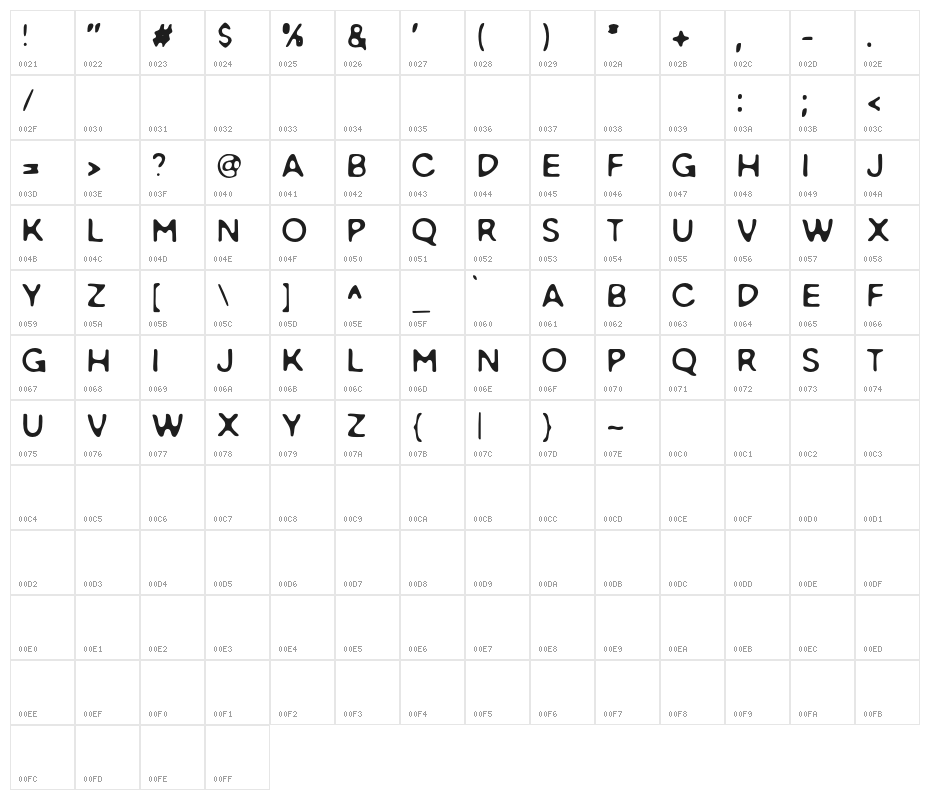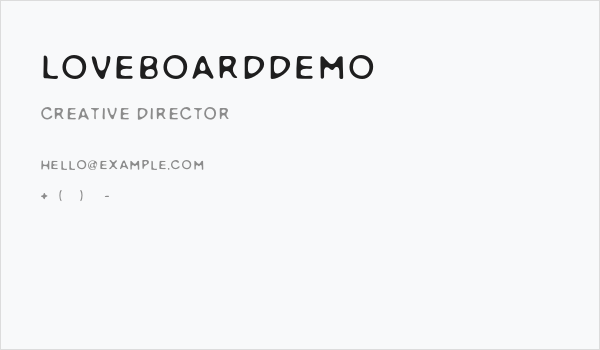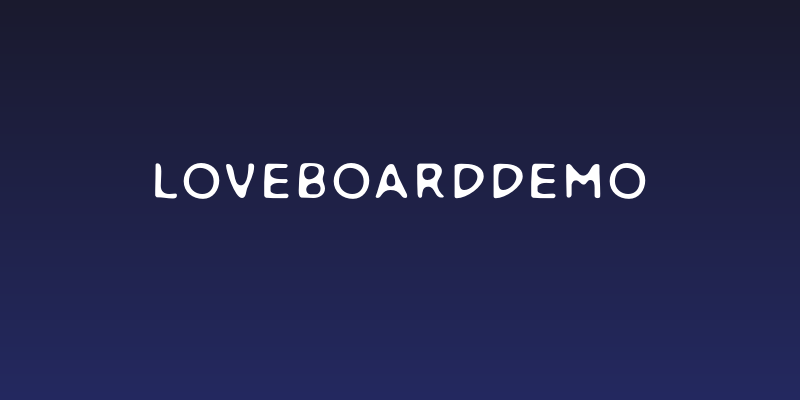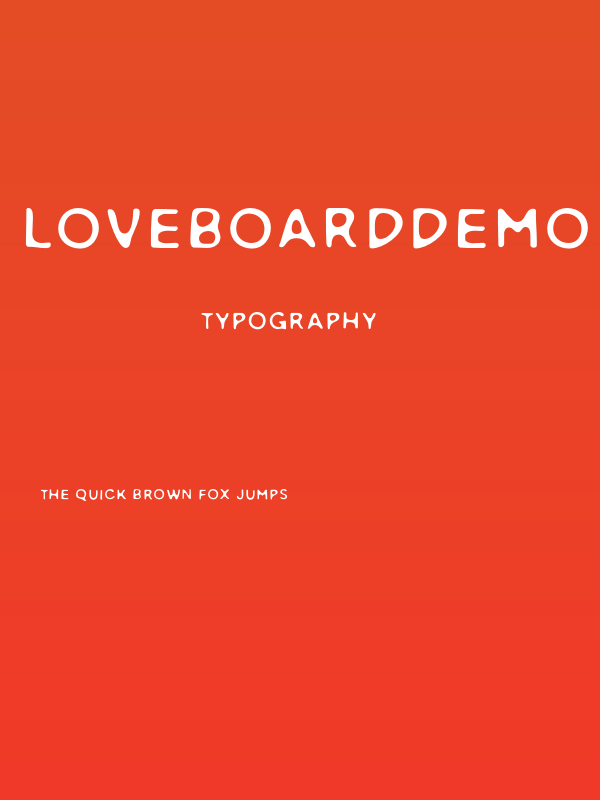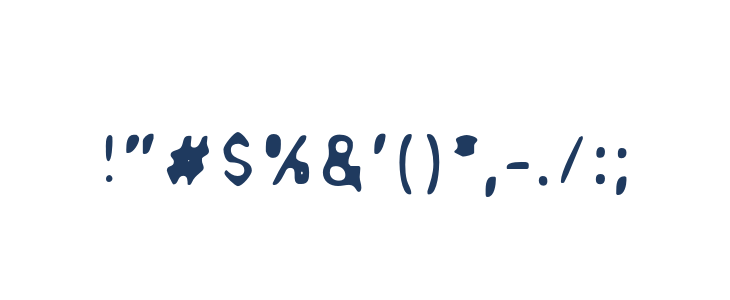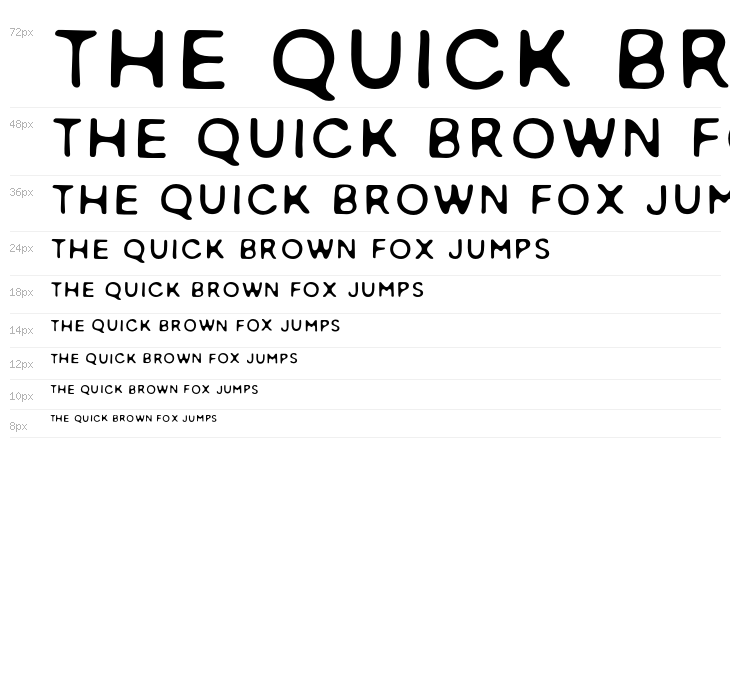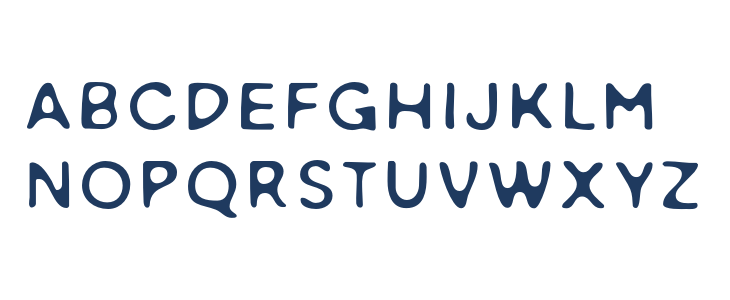
LoveBoardDEMO Font
LoveBoardDEMO Description
This font features a playful and whimsical design, characterized by its bold and rounded letterforms. The strokes are uneven, giving it a hand-drawn appearance that adds a touch of personality and charm. The characters are slightly irregular, with varying thickness that creates a dynamic and lively feel. The font includes both uppercase and lowercase letters, as well as a range of special characters, making it versatile for various design needs. Its unique style is perfect for projects that require a fun and informal touch.
| Overall Style | Whimsical |
| Proposed Projects | Ideal for children's books, playful branding, greeting cards, and creative posters. |